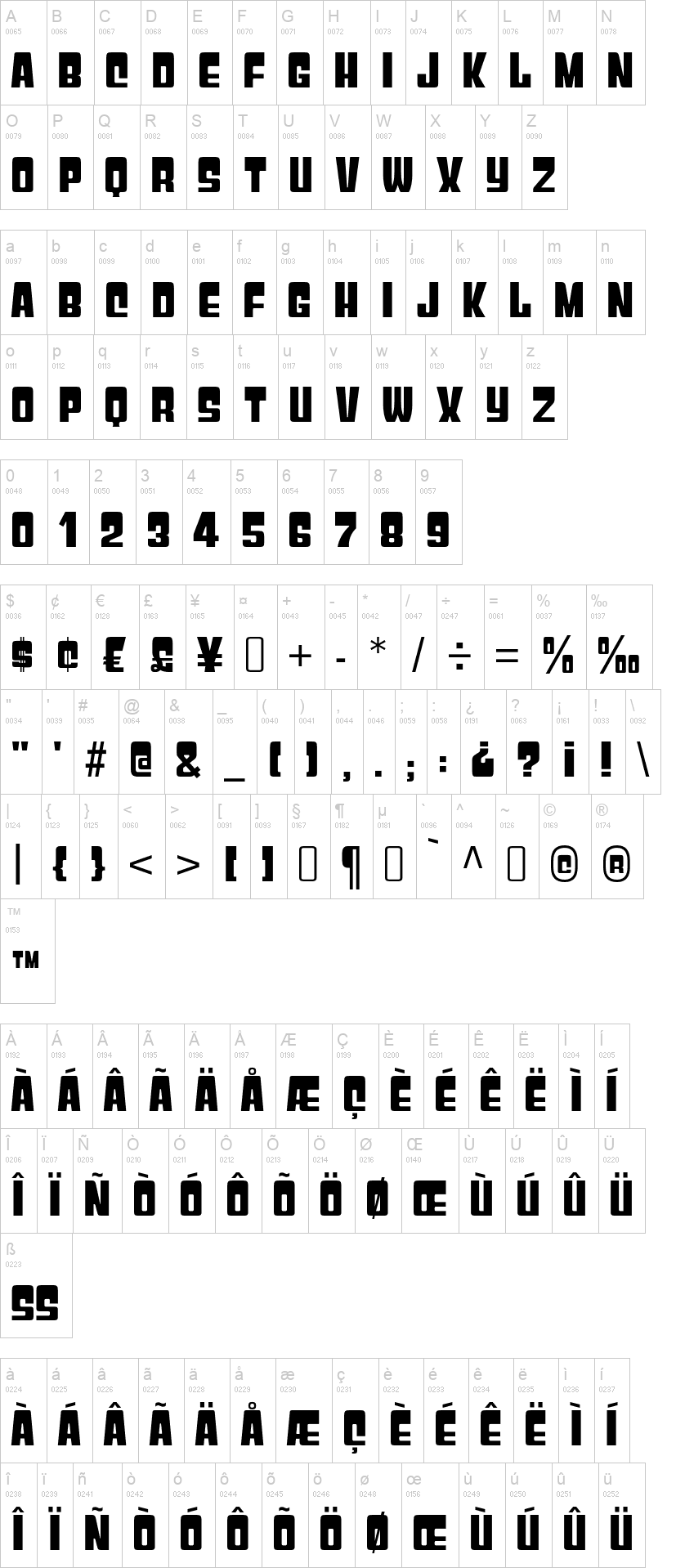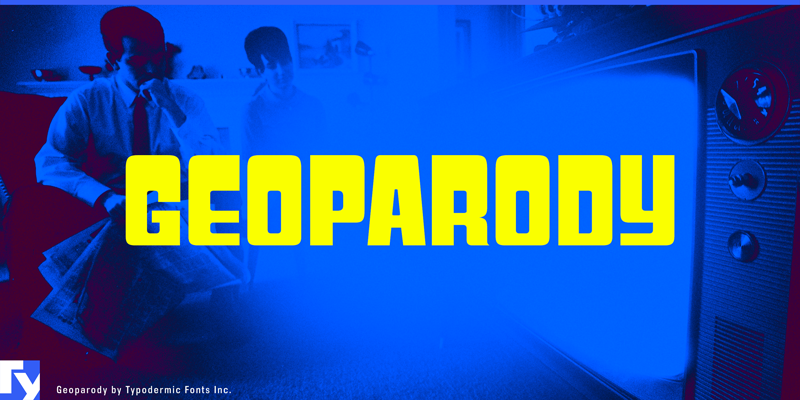
geoparody rg.otfNote of the authorAnonymous, a late 1960s typeface, inspired Geoparody. This typeface was famously used for the television quiz show Jeopardy. An alternate X and Y are available as OpenType stylistic alternates. The original typeface was only available in heavy, but Geoparody now comes in six weights and italics. Most Latin-based European writing systems are supported, including the following languages. Afaan Oromo, Afar, Afrikaans, Albanian, Alsatian, Aromanian, Aymara, Bashkir (Latin), Basque, Belarusian (Latin), Bemba, Bikol, Bosnian, Breton, Cape Verdean, Creole, Catalan, Cebuano, Chamorro, Chavacano, Chichewa, Crimean Tatar (Latin), Croatian, Czech, Danish, Dawan, Dholuo, Dutch, English, Estonian, Faroese, Fijian, Filipino, Finnish, French, Frisian, Friulian, Gagauz (Latin), Galician, Ganda, Genoese, German, Greenlandic, Guadeloupean Creole, Haitian Creole, Hawaiian, Hiligaynon, Hungarian, Icelandic, Ilocano, Indonesian, Irish, Italian, Jamaican, Kaqchikel, Karakalpak (Latin), Kashubian, Kikongo, Kinyarwanda, Kirundi, Kurdish (Latin), Latvian, Lithuanian, Lombard, Low Saxon, Luxembourgish, Maasai, Makhuwa, Malay, Maltese, Māori, Moldovan, Montenegrin, Ndebele, Neapolitan, Norwegian, Novial, Occitan, Ossetian (Latin), Papiamento, Piedmontese, Polish, Portuguese, Quechua, Rarotongan, Romanian, Romansh, Sami, Sango, Saramaccan, Sardinian, Scottish Gaelic, Serbian (Latin), Shona, Sicilian, Silesian, Slovak, Slovenian, Somali, Sorbian, Sotho, Spanish, Swahili, Swazi, Swedish, Tagalog, Tahitian, Tetum, Tongan, Tshiluba, Tsonga, Tswana, Tumbuka, Turkish, Turkmen (Latin), Tuvaluan, Uzbek (Latin), Venetian, Vepsian, Võro, Walloon, Waray-Waray, Wayuu, Welsh, Wolof, Xhosa, Yapese, Zapotec Zulu and Zuni.